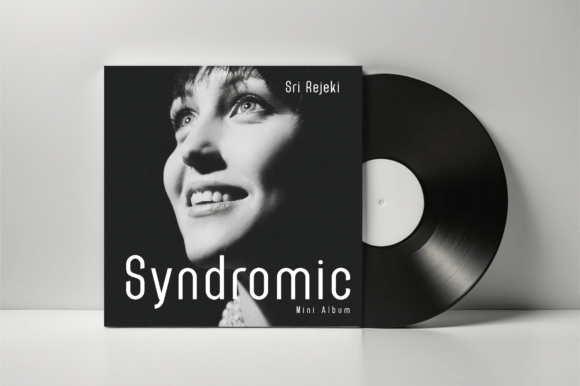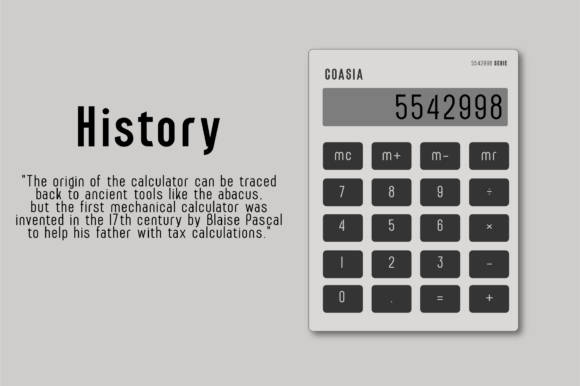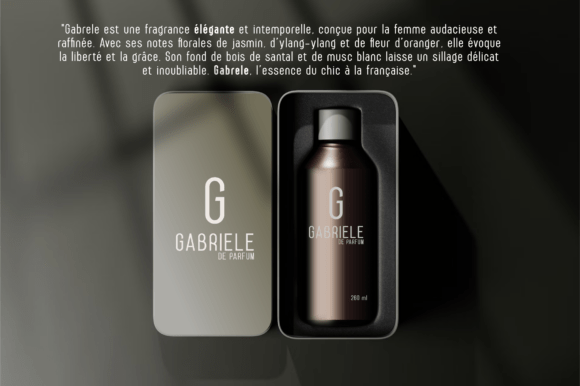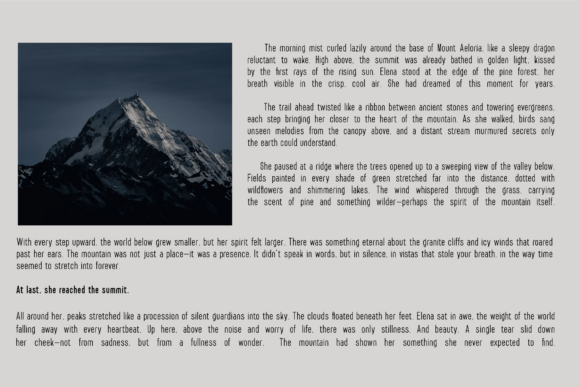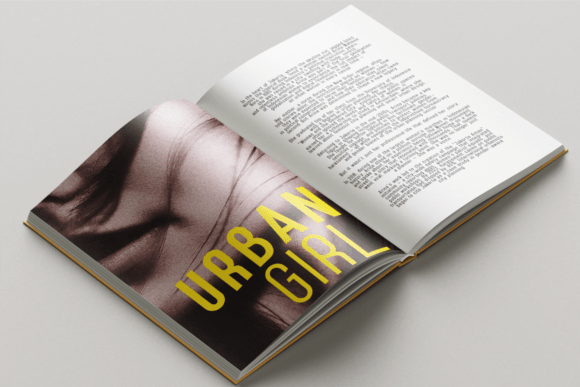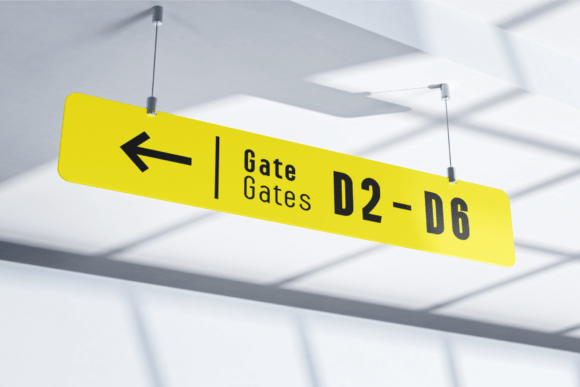
Introducing BORELA – A Modern Sans Serif Typeface
Are you looking for a versatile typeface that balances clean modernity with strong visual impact? Meet BORELA – a contemporary sans serif font designed for maximum adaptability and elegance. Whether you’re crafting a bold book title, setting readable body text, designing striking packaging, or creating standout branding and logos, BORELA has you covered.
Clean Modernity Meets Strong Visual Impact
BORELA is a geometric sans serif font that boasts a clean and modern aesthetic. Its sleek lines, smooth curves, and balanced proportions make it perfect for a wide range of design applications. The font’s geometric structure ensures that it remains legible even at small sizes, while its elegant letterforms add a touch of sophistication to any design.
One of the standout features of BORELA is its versatility. This font is designed to perform exceptionally well in various contexts, from print to digital media. Whether you’re working on a book cover, brochure, poster, or website, BORELA adapts seamlessly to any design environment.
Perfect for Body Text
BORELA’s clear and readable letterforms make it an excellent choice for body text. The font’s x-height and line spacing are carefully crafted to ensure optimal readability, even in long blocks of text. This makes BORELA ideal for use in novels, articles, blogs, and any other content that requires easy reading.
Ideal for Headings and Titles
BORELA’s geometric structure and elegant lines also make it perfect for headings and titles. The font’s bold weights can be used to create striking headlines that grab attention, while its lighter weights are suitable for subheadings and captions. This versatility allows designers to use BORELA for both prominent display text and supporting content.
Branding and Logo Design
BORELA is also well-suited for branding and logo design. Its modern and sleek aesthetic makes it perfect for companies looking to establish a contemporary brand identity. The font’s geometric structure ensures that logos and branding elements remain clean and recognizable, even at various sizes and resolutions.
Packaging and Advertising
In the world of packaging and advertising, BORELA truly shines. Its bold and elegant letterforms make it perfect for creating eye-catching packaging, posters, and advertisements. The font’s versatility allows designers to experiment with different layouts, colors, and typography to create stunning visual effects.
Key Features of BORELA
- Geometric sans serif font with clean lines and smooth curves
- Highly legible even at small sizes
- Versatile and adaptable to various design contexts
- Perfect for body text and long-form content
- Ideal for headings and titles with bold and elegant letterforms
- Suitable for branding and logo design with a modern aesthetic
- Optimized for packaging and advertising with striking visual impact
| Font Name | Borela Font |
| Author | zamjump |
BORELA is a modern sans serif typeface that offers the perfect blend of clean modernity and strong visual impact. Its versatility, elegance, and adaptability make it an excellent choice for designers and crafters looking for a reliable font for various design applications. Whether you’re working on a book, branding project, packaging design, or digital content, BORELA is sure to impress.
Discover the power of BORELA and elevate your designs to new heights. With its geometric structure, smooth letterforms, and adaptable nature, BORELA is the perfect addition to any designer’s toolkit.